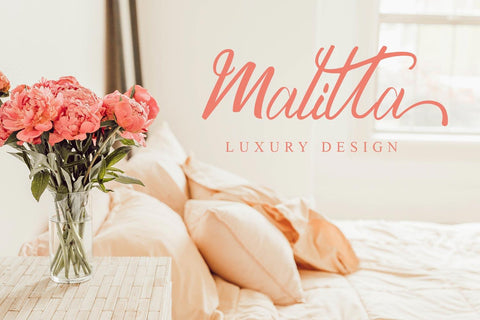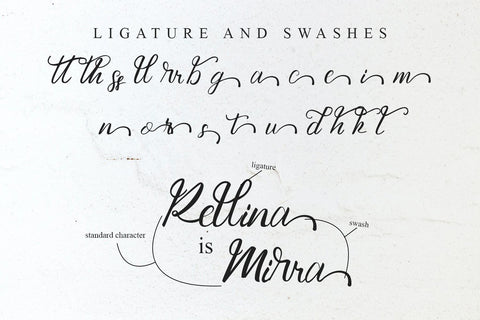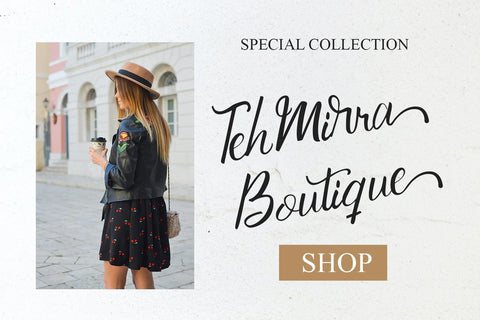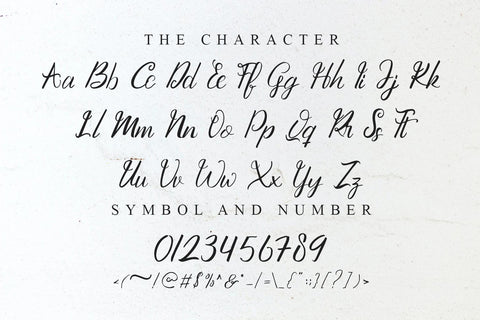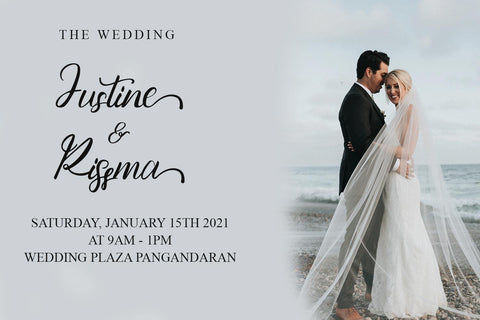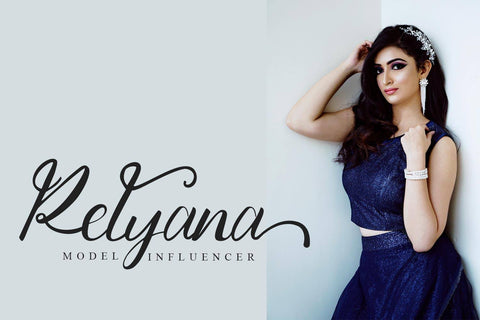
Grattenburg Beautiful Scrift Font
Gruttenburg is a Beautiful Script Font, This font is handmade and has a powerful character with SALT and ligatures. The font is work specialty is good for product design like a Template/mockup, Post, T-shirt, Quote, New Years Present, typography design, etc. This product is inspirational for your creative design.